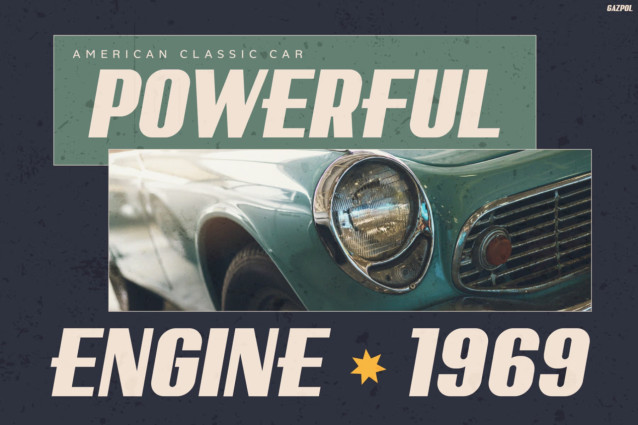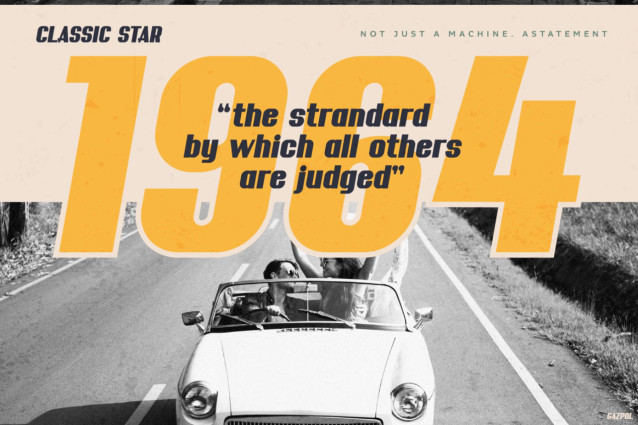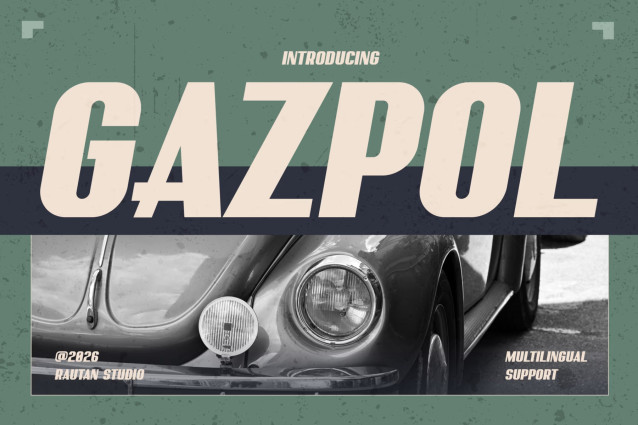
GAZPOL — Classic Speed. Bold Impact
Vintage Font GAZPOL brings classic automotive energy into modern typography. First, its bold and condensed letterforms create an instant sense of speed and power. At the same time, the slightly slanted shapes add a rugged retro attitude. As a result, GAZPOL gives headlines a strong vintage look while keeping them easy to read.
Moreover, GAZPOL fits automotive brands, racing projects, apparel creators, and graphic designers. For example, you can use it for car logos, racing posters, garage signs, T-shirts, badges, and magazine covers. Likewise, it works well for packaging, social media graphics, advertising, and branding. Meanwhile, its retro character pairs naturally with classic cars, vintage photography, distressed textures, and old-school color palettes.
In addition, GAZPOL includes Multilingual Support for 67 Languages. Therefore, you can use it for both local and international projects. Whether you create a racing poster or a vintage car advertisement, GAZPOL adds personality and visual impact. Furthermore, its display style helps important words stand out instantly.